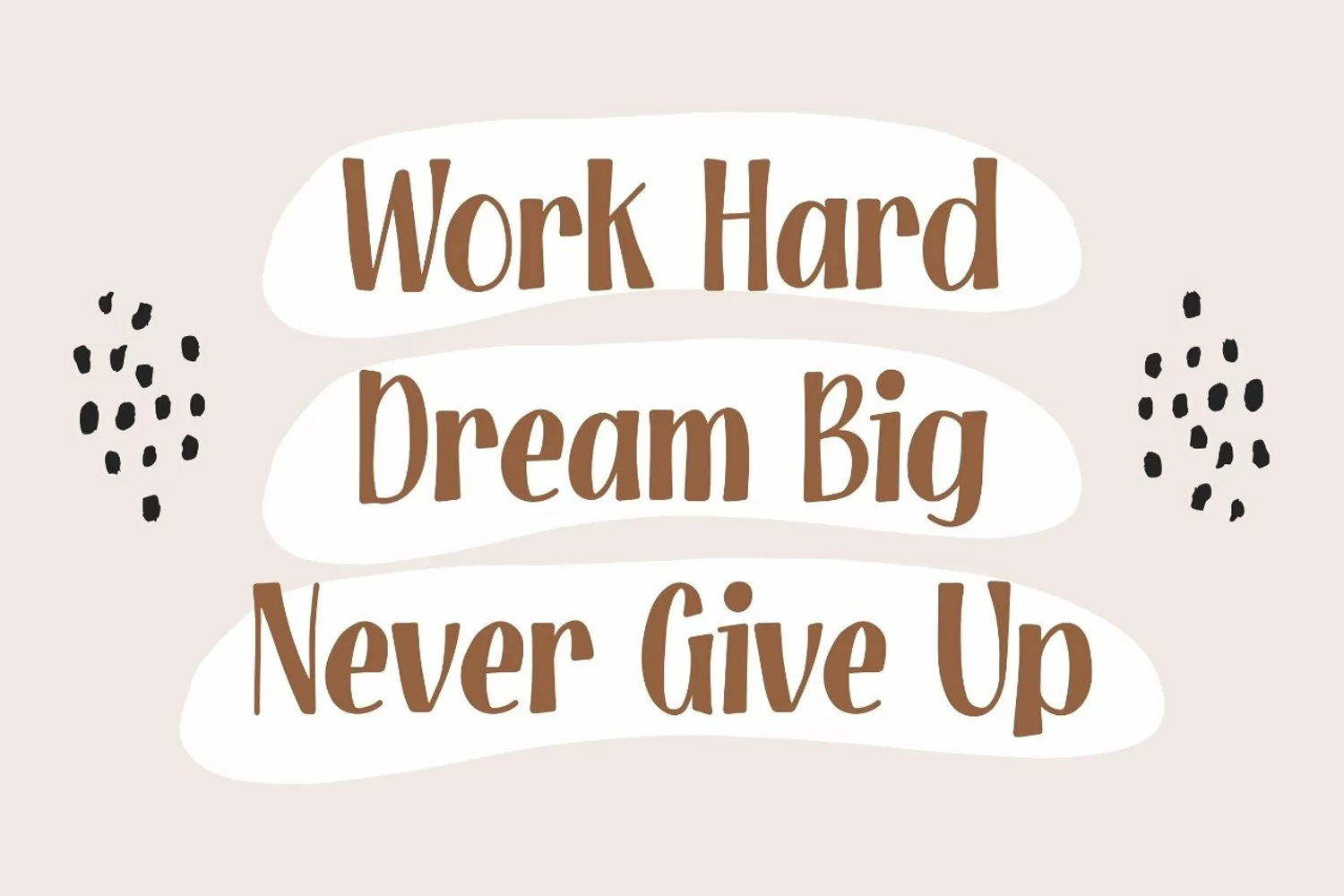
Holiday Cheers - Fancy Handdrawn Font that contain lowercase, uppercase, symbol, and also support multi language. There’s a lot ligatures in this font. This Font also comes with ligatures, alternates and many more. this font suitable for fashion, branding, catalog and other design what you want.